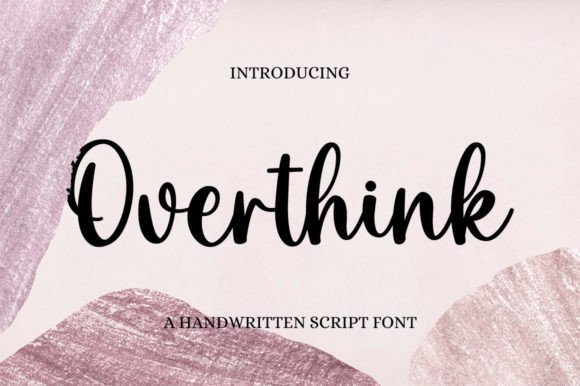
In a world saturated by digital monotony, typography has emerged as a beacon of individuality, an enchanting language that speaks to the soul. Enter Overthink, a masterpiece of digital calligraphy that exudes unmatched beauty and grace. This script font, meticulously crafted by the talented artisans at Graphix Line Studio, is designed to ignite your creativity and elevate your designs to ethereal heights.
Overthink is not merely a font; it's an invitation to transcend the boundaries of ordinary expression. Its delicate strokes and elegant curves dance across the screen, evoking a sense of timeless sophistication. Experience the sheer joy of crafting designs that resonate with your audience, leaving an indelible imprint on their minds.
With Overthink as your creative ally, you'll discover a font that effortlessly harmonizes with your diverse design endeavors. Whether you're crafting captivating display ads that demand attention or weaving enchanting stories through web design, Overthink is the ultimate muse, guiding your creative vision to new horizons.
Beyond its versatility, Overthink possesses an undeniable emotional allure. Its graceful lines and perfectly balanced characters evoke a sense of serenity and tranquility, inviting viewers to immerse themselves in the depths of your creative expression. Prepare to witness the transformative power of typography as Overthink breathes life into your designs, captivating audiences with its ethereal beauty.